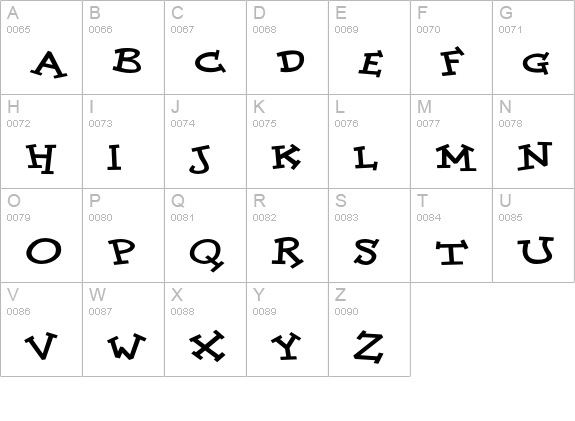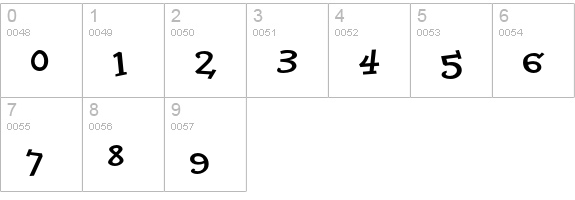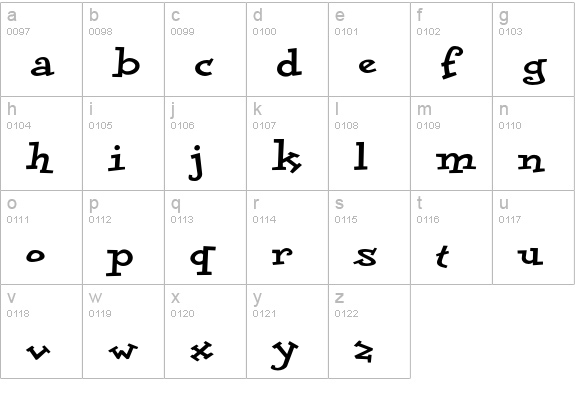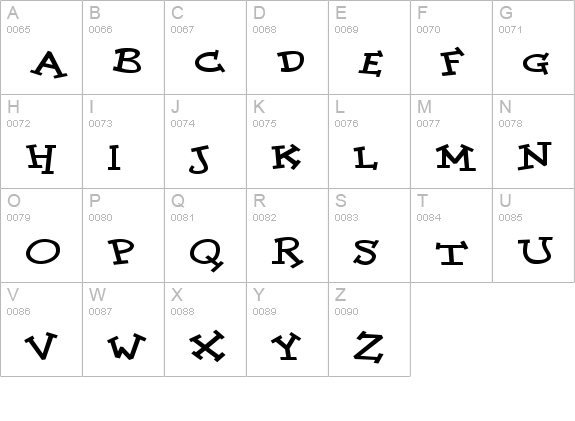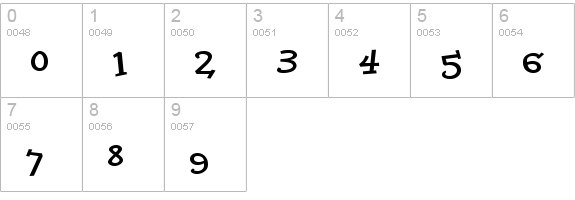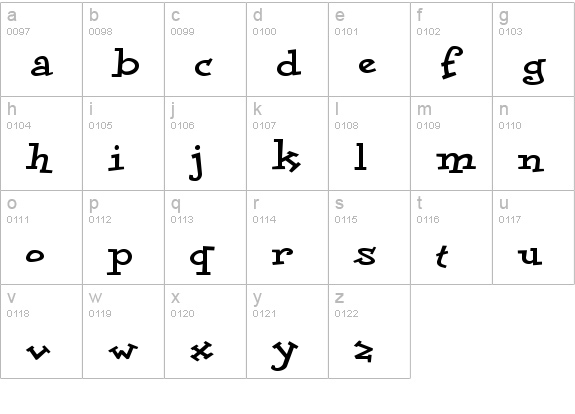
DoloresExtraBold Font Details
DoloresExtraBold font is a striking and bold typeface that commands attention with its strong presence and modern aesthetic. With its thick, heavy strokes and sharp edges, this font exudes confidence and power, making it the perfect choice for headlines, logos, and other design projects that require a bold statement. The versatility of DoloresExtraBold font allows it to be used across various design styles, from contemporary to edgy. What's even better is that DoloresExtraBold font is available for free download at FontsMarket.com, allowing designers and creatives to access this powerful font without any cost. Whether you're working on a branding project, poster design, or any other creative endeavor, DoloresExtraBold font is sure to make a bold impact and elevate your designs to the next level. Download it today and unleash the power of DoloresExtraBold font in your projects!